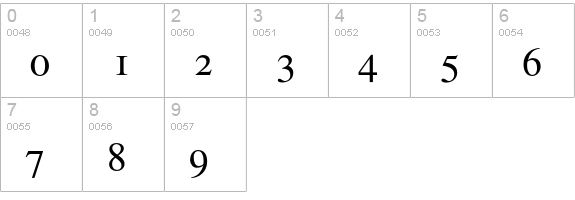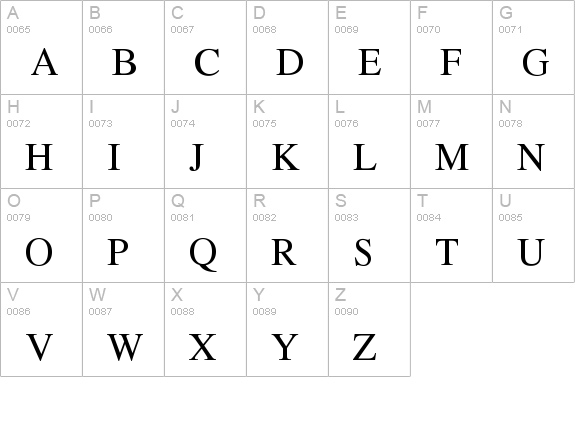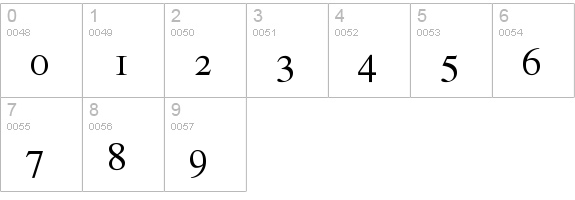
Times Roman Small Caps & Old Style Figures is a classic and elegant font that combines the timeless appeal of small caps with the charm of old-style figures. Its refined and sophisticated design makes it perfect for a wide range of applications, including book covers, invitations, and branding materials. The small caps in this font add a touch of professionalism and formality to any text, making it ideal for corporate communication and formal documents. The old-style figures, on the other hand, bring a sense of nostalgia and elegance, making it a great choice for vintage-inspired designs or projects that require a touch of vintage flair. One of the best things about Times Roman Small Caps & Old Style Figures font is that it is freely available to download at FontsMarket.com. This means that you can enjoy the beauty and versatility of this font without any cost. Whether you are a professional designer or an enthusiast looking to enhance your projects, this font is a valuable addition to your collection. With its clean lines, balanced proportions, and legible letterforms, Times Roman Small Caps & Old Style Figures font is a timeless choice that will never go out of style. Its versatility and classic appeal make it suitable for a wide range of design projects, from elegant wedding invitations to sleek corporate logos. So, why wait? Download Times Roman Small Caps & Old Style Figures font for free at FontsMarket.com and elevate your designs with this exquisite and versatile typeface.